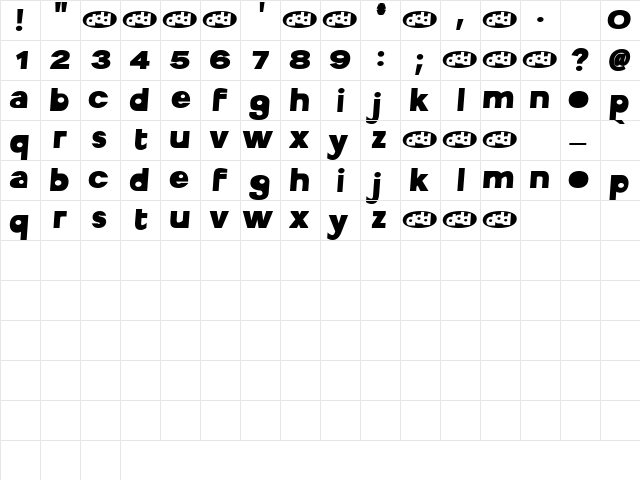
Alright Regular Font Preview
Alright Regular
Design Context for Alright Typeface
Alright is a composed and adaptable typeface that performs quietly and consistently across a wide range of design contexts.